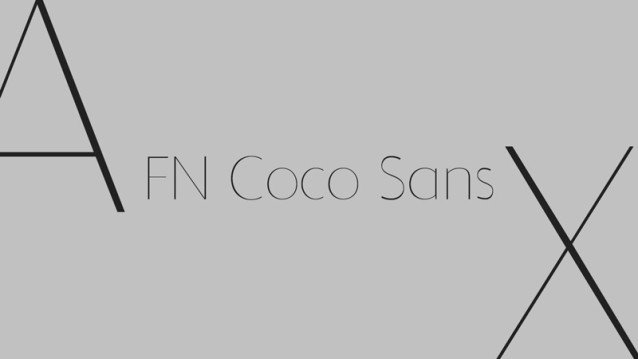
FN Coco Sans Font
FN Coco Sans Font a bold statement with our latest sans-serif font. With its clean lines and modern appeal, this font is sure to turn heads and leave a lasting impression. Perfect for headlines, logos, and any design that demands attention. It is both functional and stylish, making it a versatile choice for a wide range of design projects.
Classification: Modern Fonts, Sans Serif Fonts